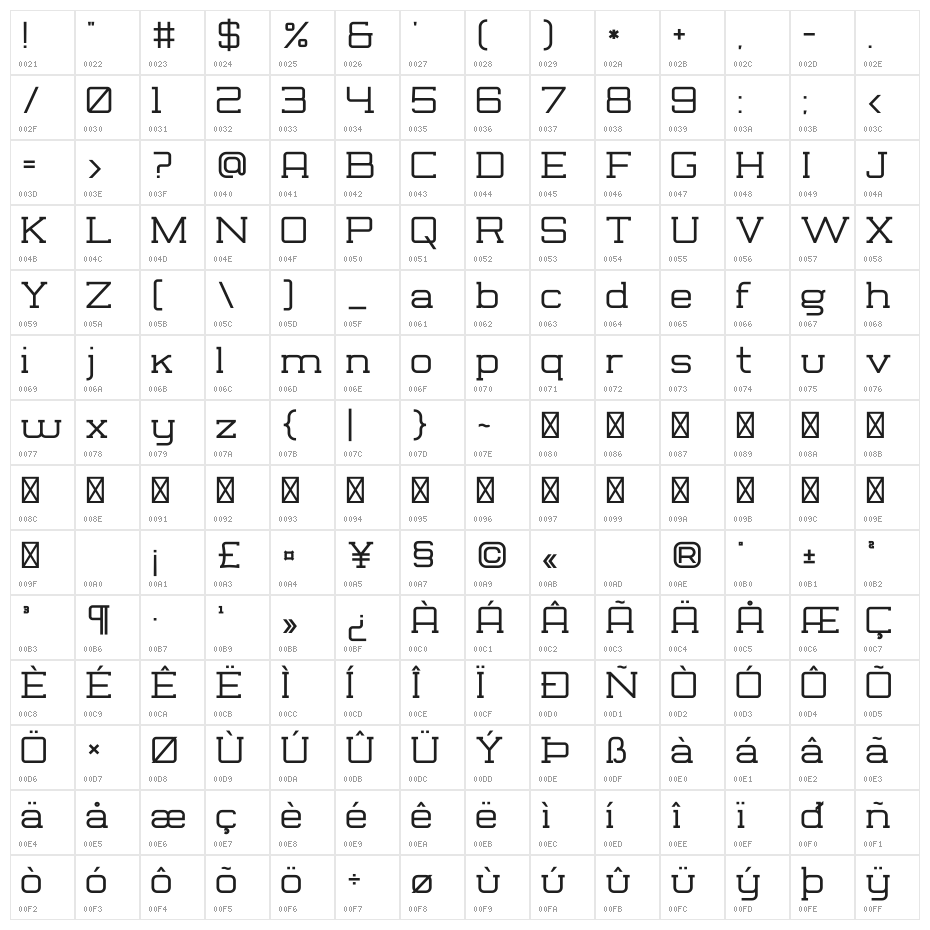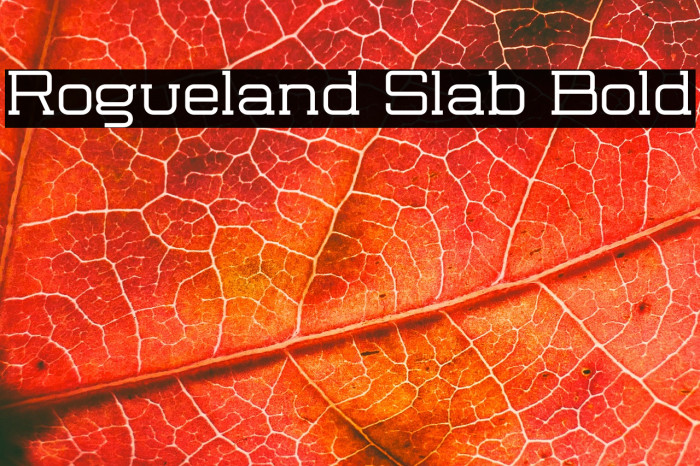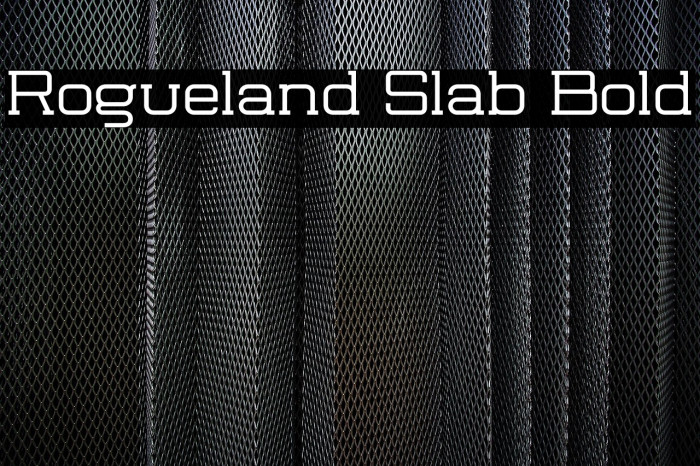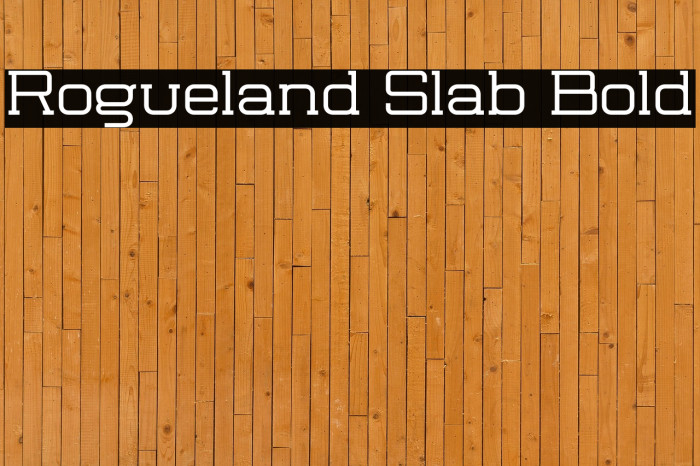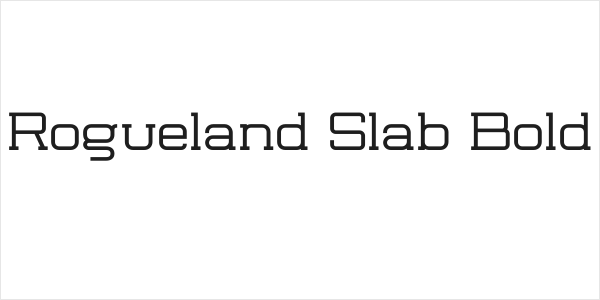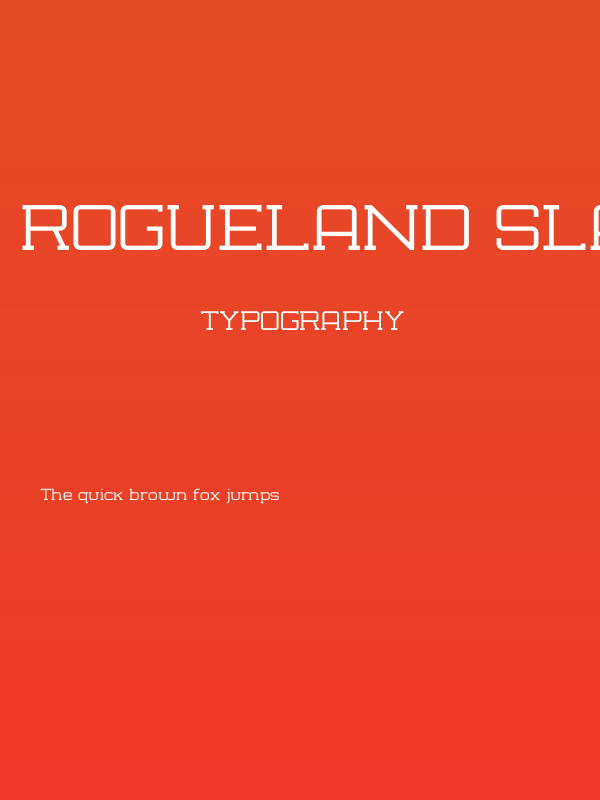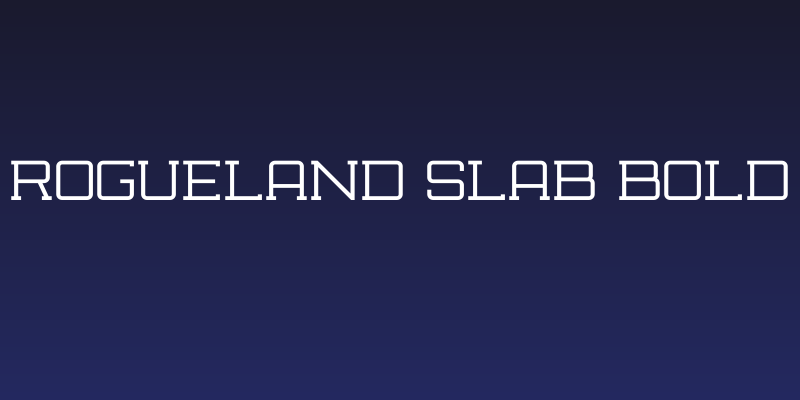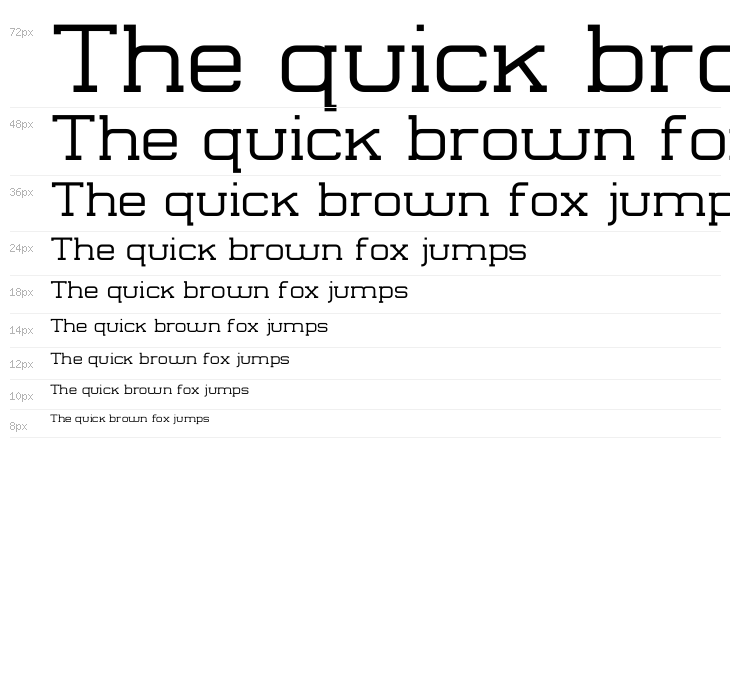
Rogueland Slab Bold Font
Rogueland Slab Bold Description
This font features a bold, slab serif style with a modern twist. The characters are structured with strong, rectangular serifs that give a robust and sturdy appearance. The uppercase letters are uniform in height, while the lowercase letters maintain a consistent baseline, enhancing readability. The numerals are distinct and clear, making them suitable for various applications. Special characters are well-defined, adding versatility to the font. The overall design is clean and geometric, with a slight industrial feel, making it ideal for projects that require a contemporary yet strong typeface.
Proposed ProjectsIdeal for branding, headlines, posters, and signage where a strong, modern presence is desired.